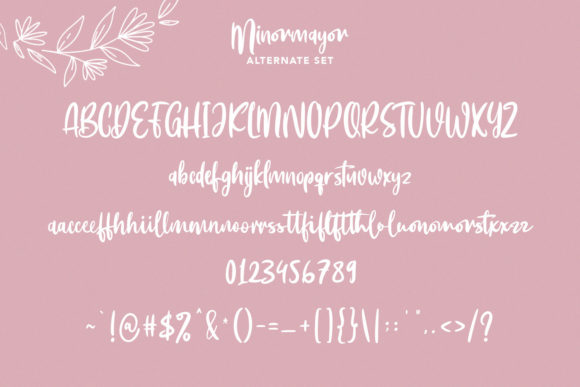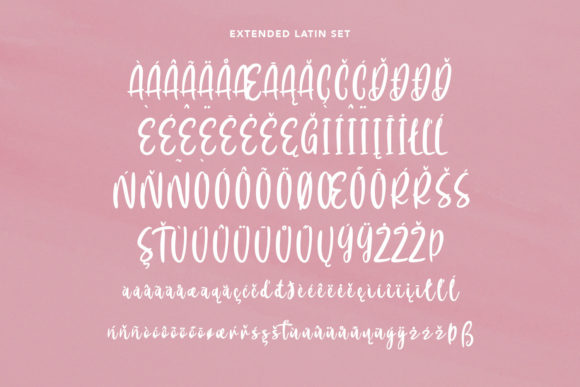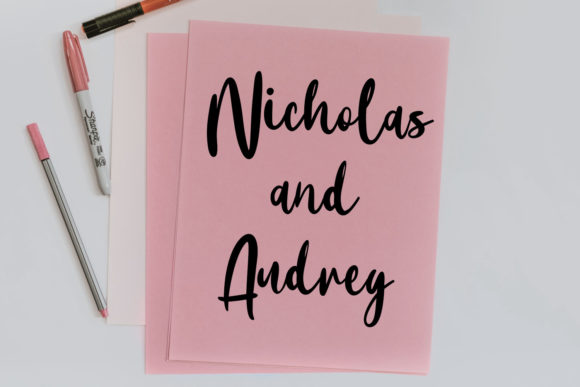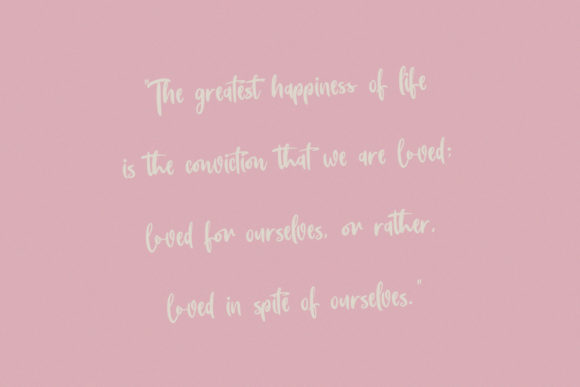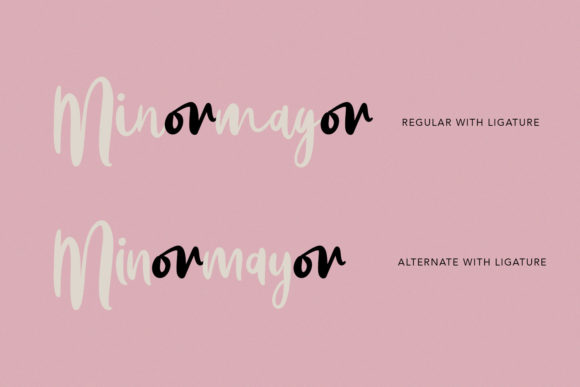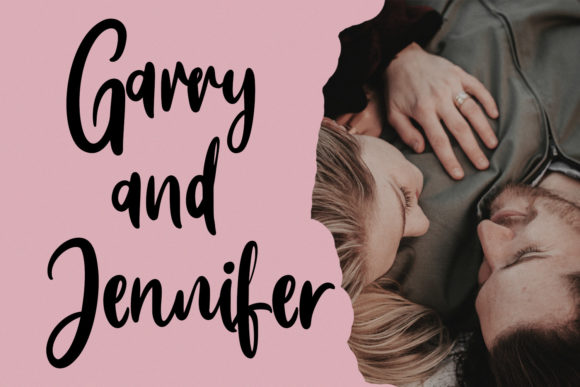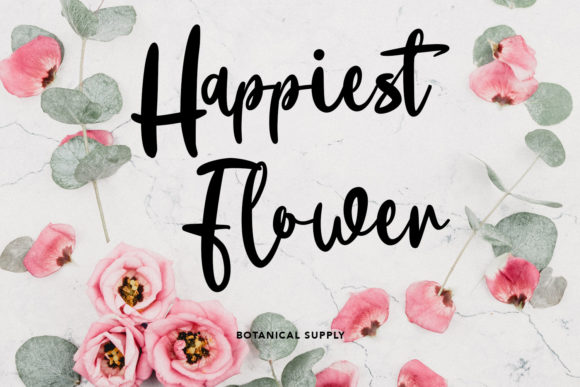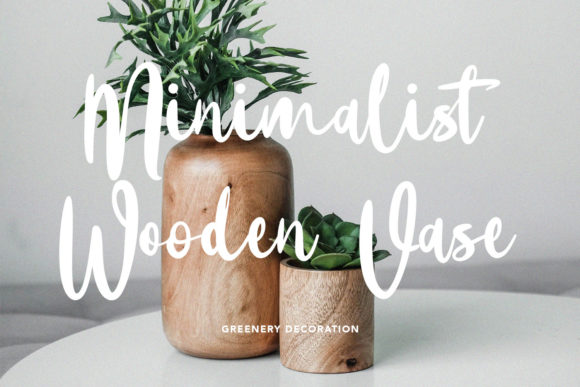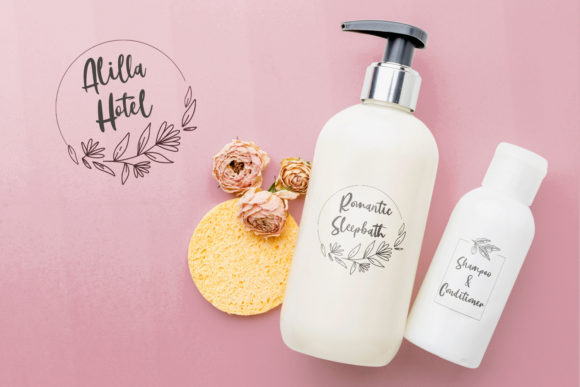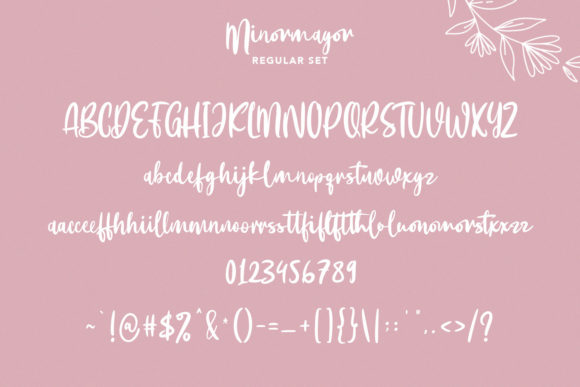
Minormayor Font
About Minormayor Font
Minormayor is a charming and flowing handwritten font that adds a touch of cuteness and elegance to any design project. With its smooth and graceful letterforms, this font exudes a sense of playfulness and warmth.
The beauty of Minormayor lies in its versatility. It can be used for a wide range of projects, including logos, branding, invitations, social media posts, greeting cards, and more. Its flowing and organic style gives a personal and handmade feel to your designs, making them stand out and leave a lasting impression.
Minormayor’s cute and flowing nature makes it perfect for projects aimed at capturing a joyful and lighthearted atmosphere. Whether you’re working on children’s books, crafts, or any design that needs a touch of whimsy, this font will bring a sense of delight and charm.
By using Minormayor, you can elevate your projects to new levels. Its soft curves and carefully crafted letterforms create a harmonious and visually pleasing typography. Each character flows seamlessly into the next, resulting in a smooth and cohesive text.
Whether you’re creating a wedding invitation with a romantic touch or a fun branding campaign that appeals to a younger audience, Minormayor will add a unique and captivating element to your designs.
So, embrace the cuteness and flow of Minormayor and let it bring your projects to life. Its charming and playful nature will captivate your audience and create a delightful visual experience. Let your creativity flow and watch as Minormayor enhances your designs with its irresistible charm.